Every detail matters when creating a gaming experience, and typography is no exception. To enhance the overall experience, choosing functional fonts for games is crucial. We’ve curated a list of the best gaming fonts to help you decide the best typography to elevate your game design. Let’s dive in!
- Fonts significantly impact the player’s experience and the overall aesthetic of a game.
- Gaming fonts come in various styles, like pixelated, sans serif, and decorative fonts, depending on the genre.
- Different fonts are better suited for titles, headings, UI elements, and text descriptions.
25 Stunning Fonts for Games
Modern sans-serif fonts are often an excellent choice for gaming designs due to their clean and legible appearance. However, there are many other font styles to explore, depending on the mood and theme of your game. Here are some great suggestions for your game design.
1. Defront
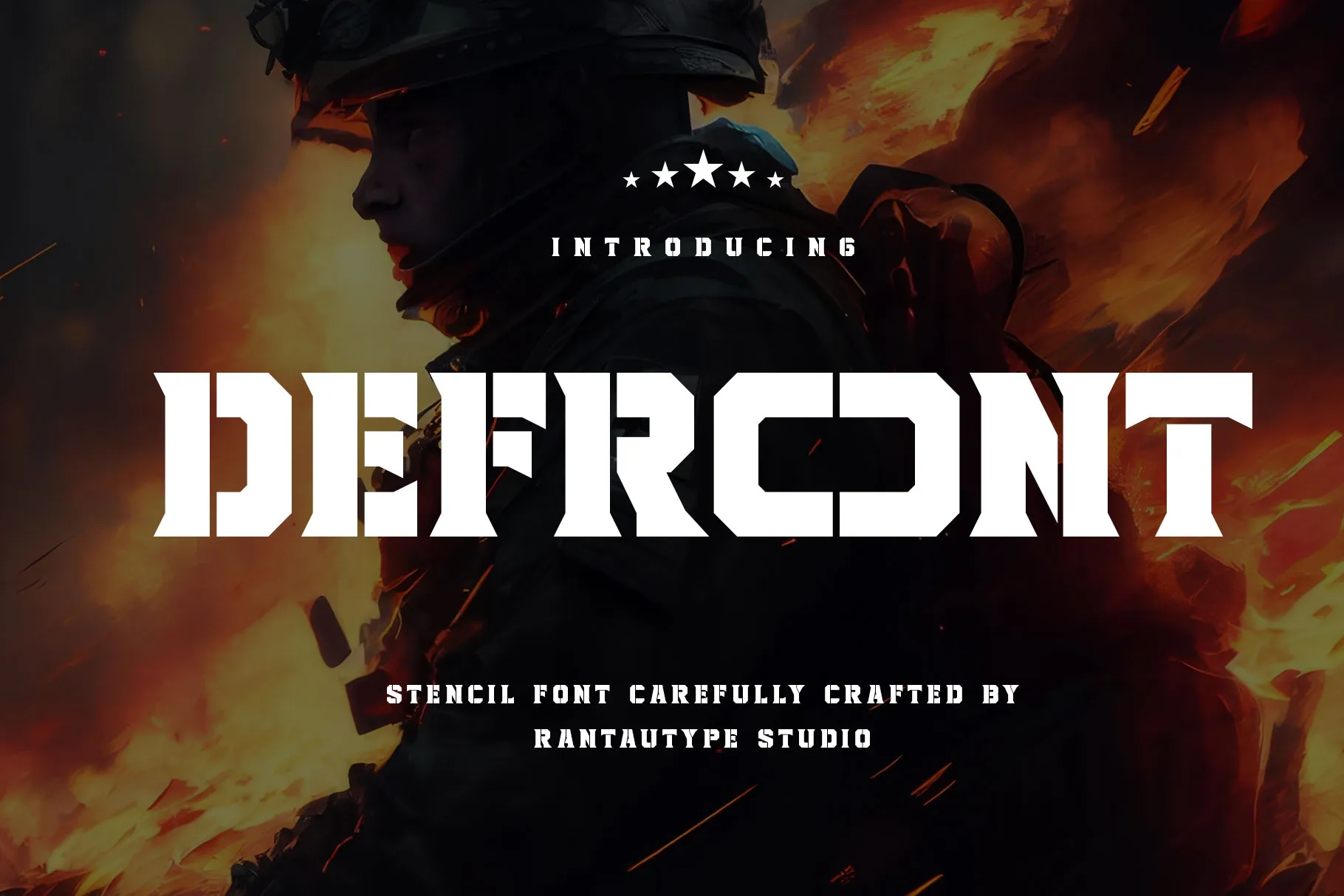
Defront is a bold, military-style stencil typeface. It features sharp geometric edges with cut-out sections. Therefore, it’s well-suited for first-person shooter and action games.
2. Outerion
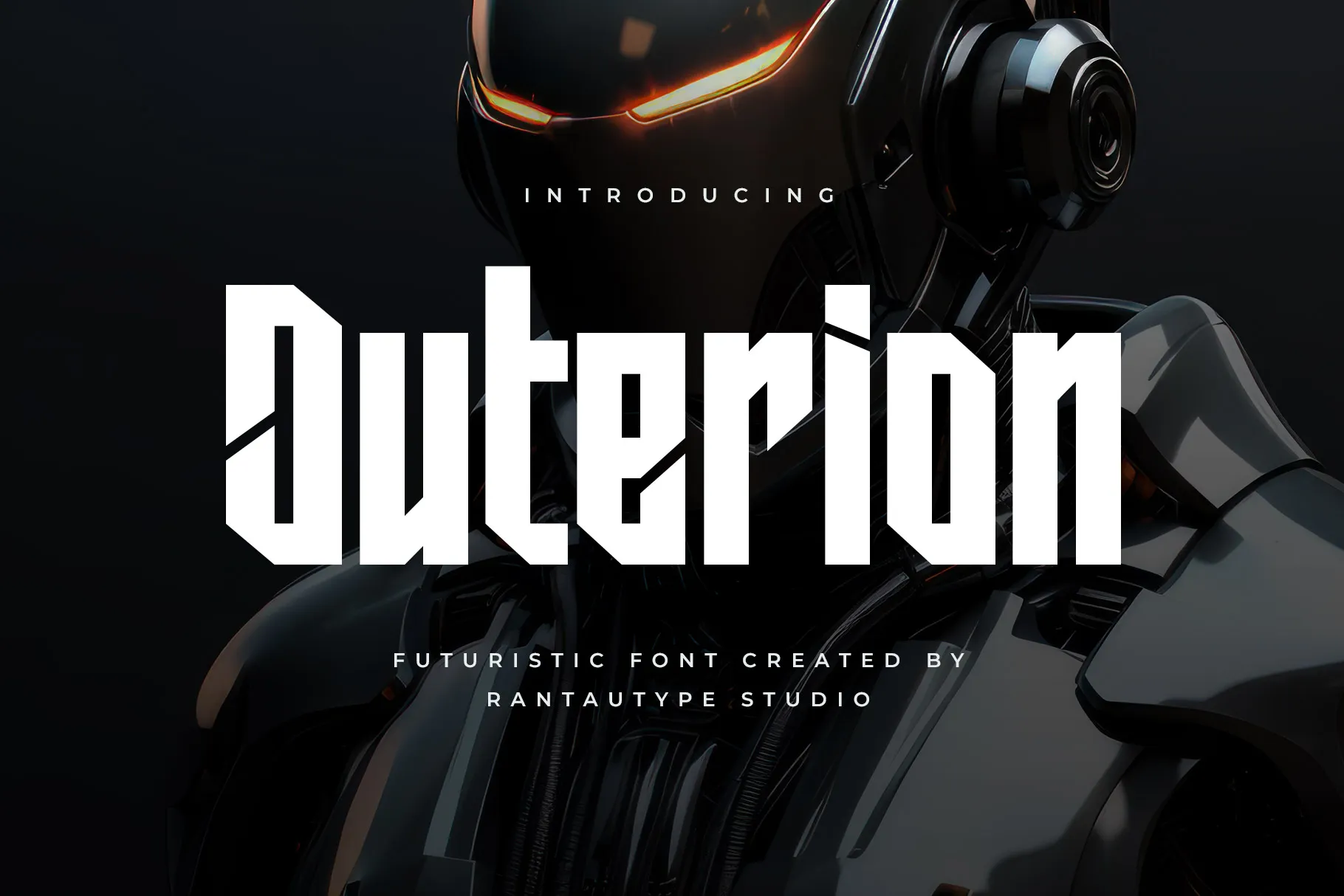
Outerion font presents sharp, angular edges, structured letterforms, and a high-tech aesthetic. It matches flawlessly for sci-fi themes, like cyberpunk, dystopian, or robots.
3. Sersant
Sersant Font exudes a modern and industrial feel with its robust geometric design. Hence, it works well for titles and UI elements in adventure or post-apocalyptic games.
4. Mirdane
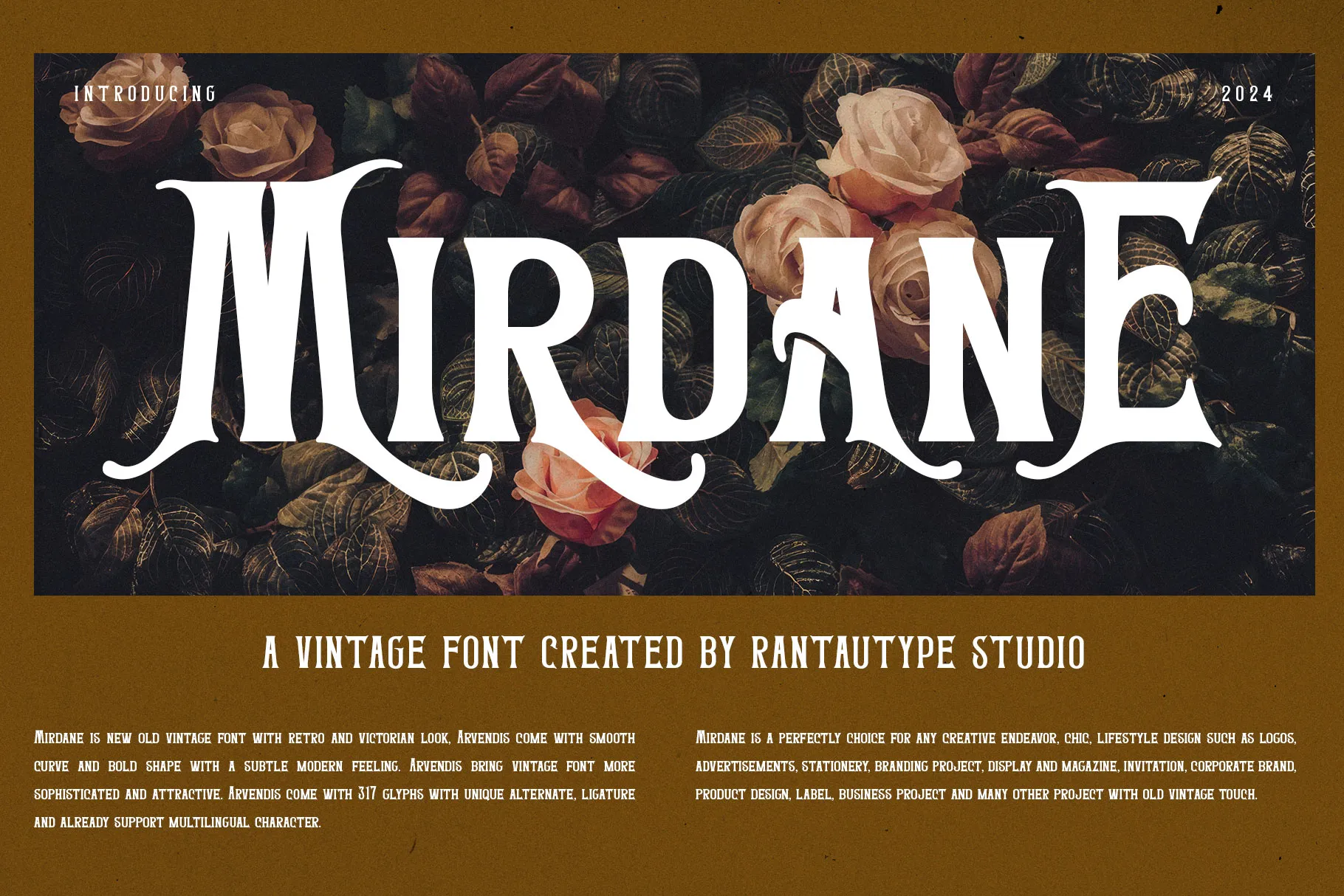
If you love fantasy games, Mirdane is wonderful to make your game design captivating. Additionally, its alternatives can bring a more authentic, enchanting vintage look.
5. Stenar
The Stenar font has a strong, blocky style, giving it a medieval-inspired vibe. Despite its unique style, the font is still clear and legible for an eye-catching title.
6. Dark Mystic
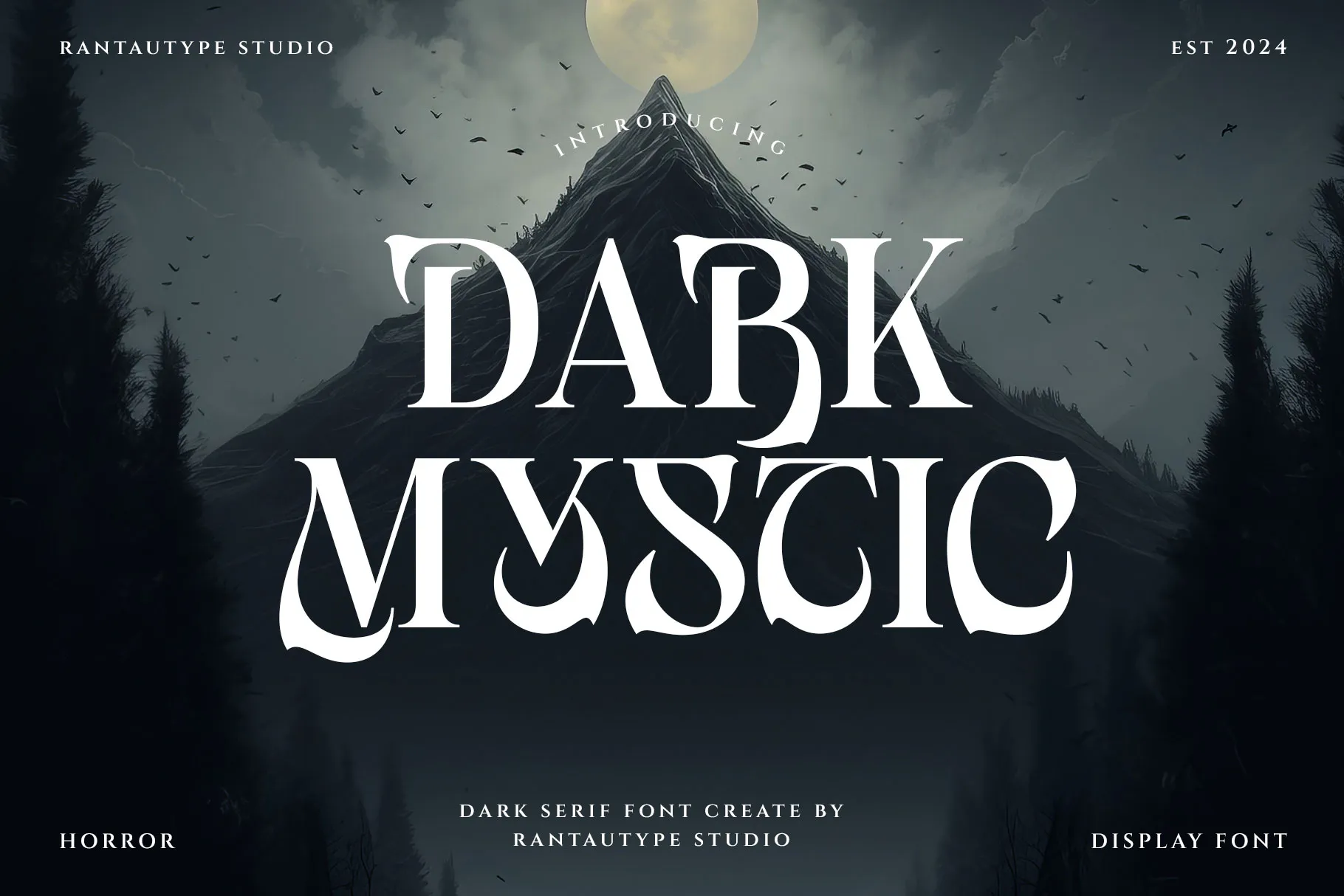
Dark Mystic font stands out among other fonts for games. Like its name, the font appears mystical and mysterious. It will be a good font to complement dark fantasy games.
7. Cadires
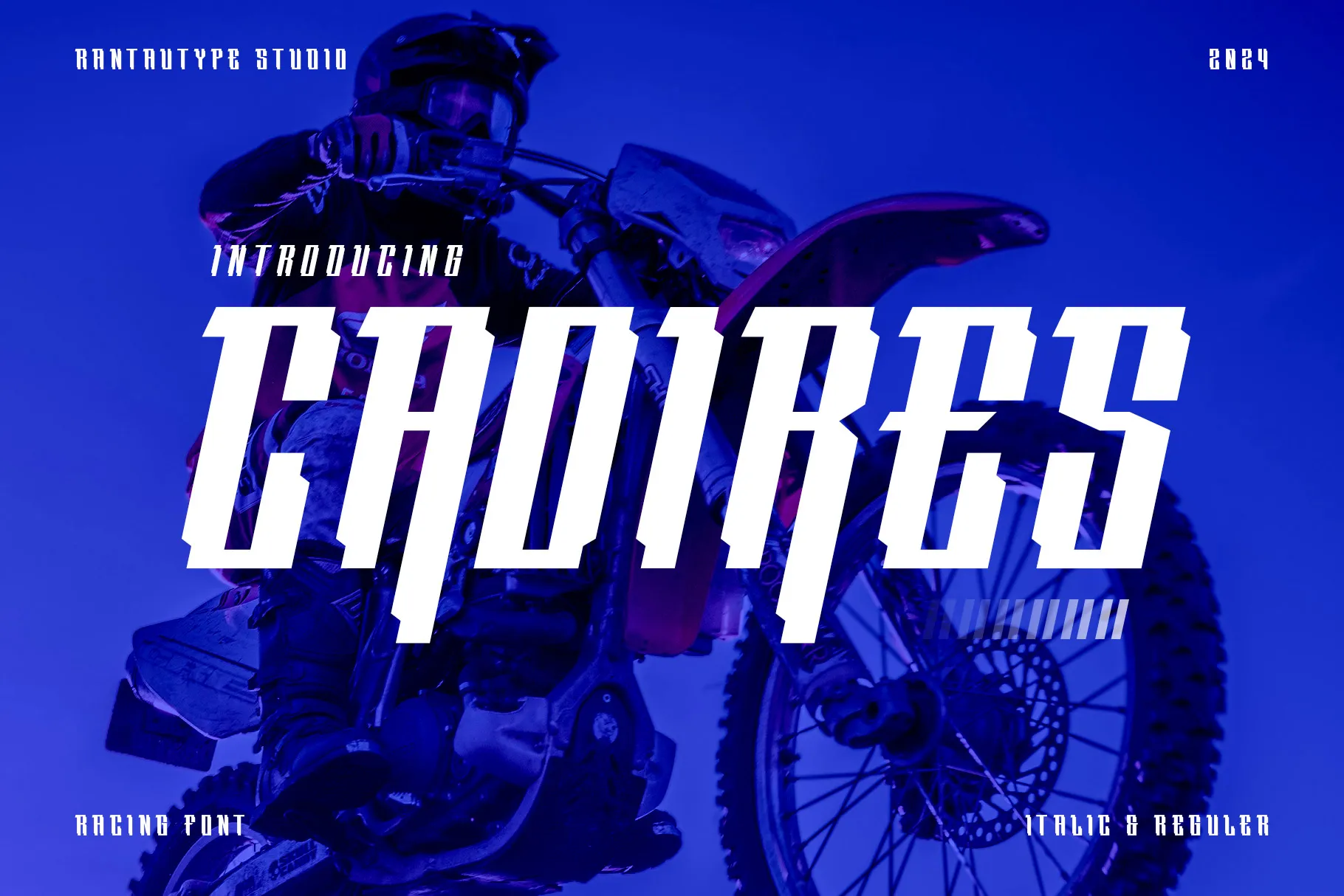
The Cadires font has a structured design with a pixelated style, giving it a solid appearance. This font is versatile for sports or retro, pixelated games.
8. Maorin
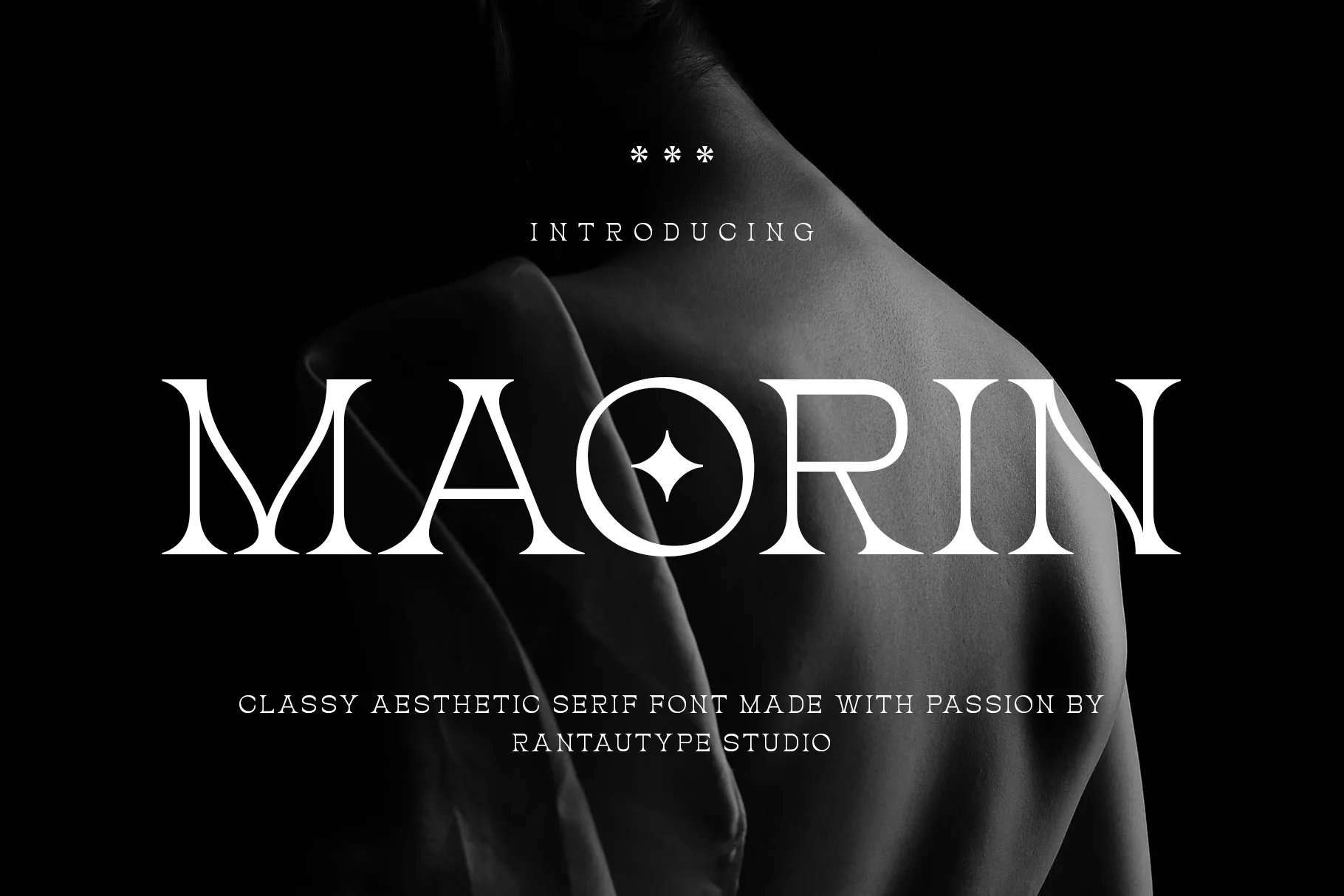
The Maorin font appears elegant and classic. However, it can be used for various purposes. Thanks to its sleek design, the font looks great for sci-fi or fantasy games.
9. Rectinos
What font is used for Game of Thrones? The Game of Thrones logo features a custom serif typeface with sharp, elegant lines that evoke a medieval aesthetic. Similarly, Rectinos, with its ornate blackletter design, carries a gothic flair that complements medieval, fantasy, or pirate-themed visuals.
10. Theroar
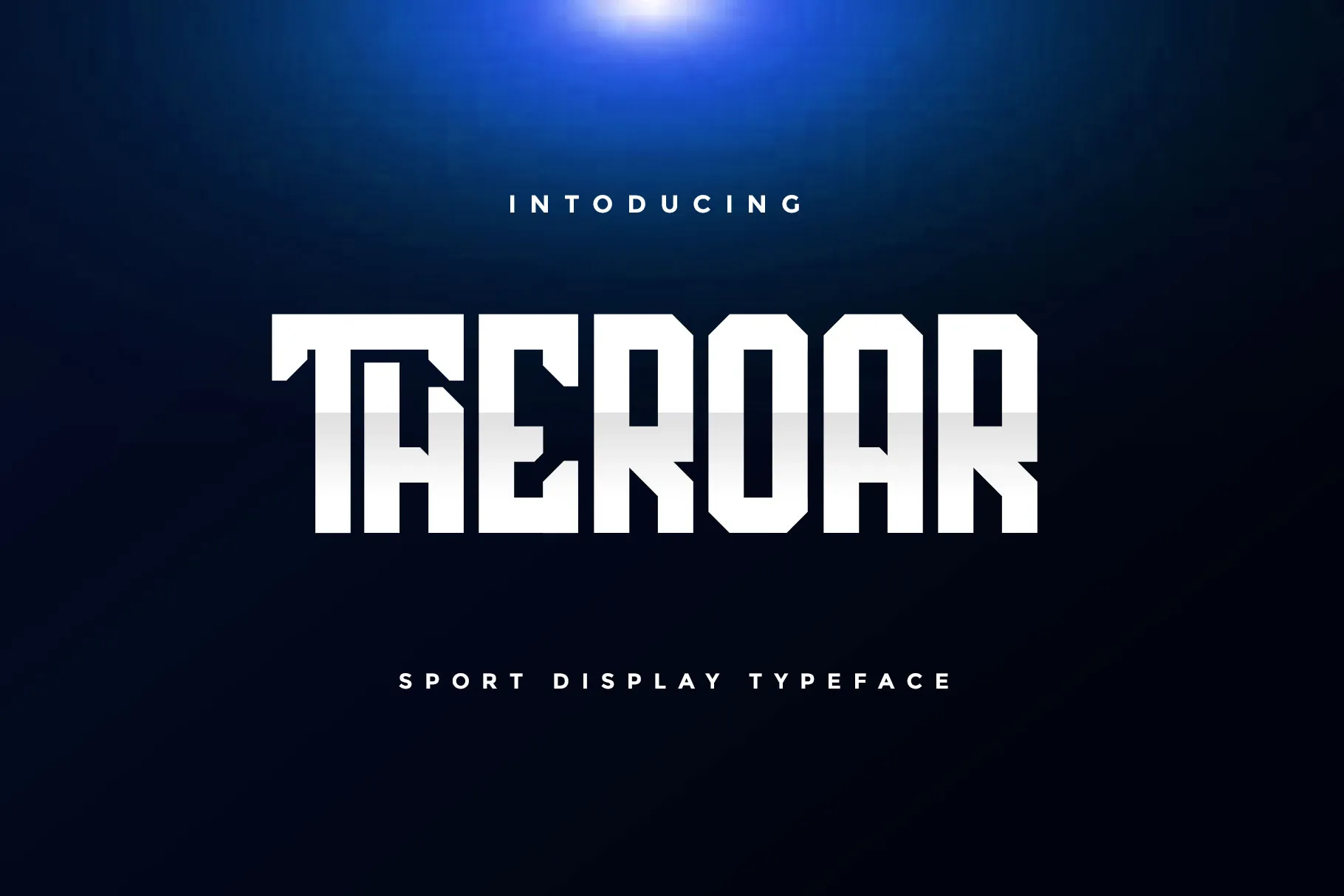
Theroar font is one of the good fonts for games with a modern aesthetic. Thus, it looks stunning for titles or logos.
11. Elsone
Give your game a more advanced vibe! No sans serif font better embodies modernity than Elsone’s design.
12. Kuvas
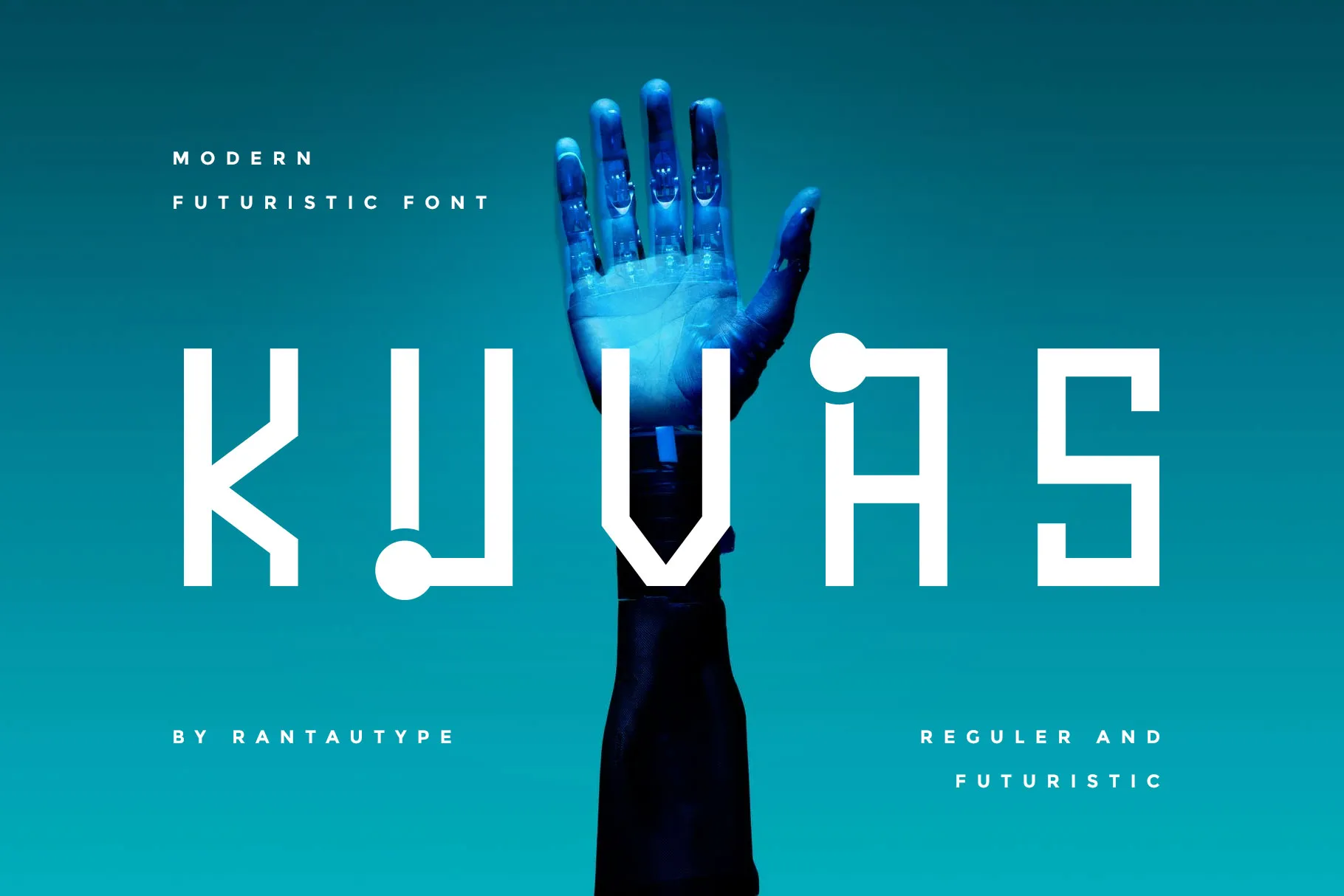
If you want to make your game design more futuristic, Kuvas font is a great answer. The font has a minimalistic design with circular details to reinforce its digital look.
13. Fassero
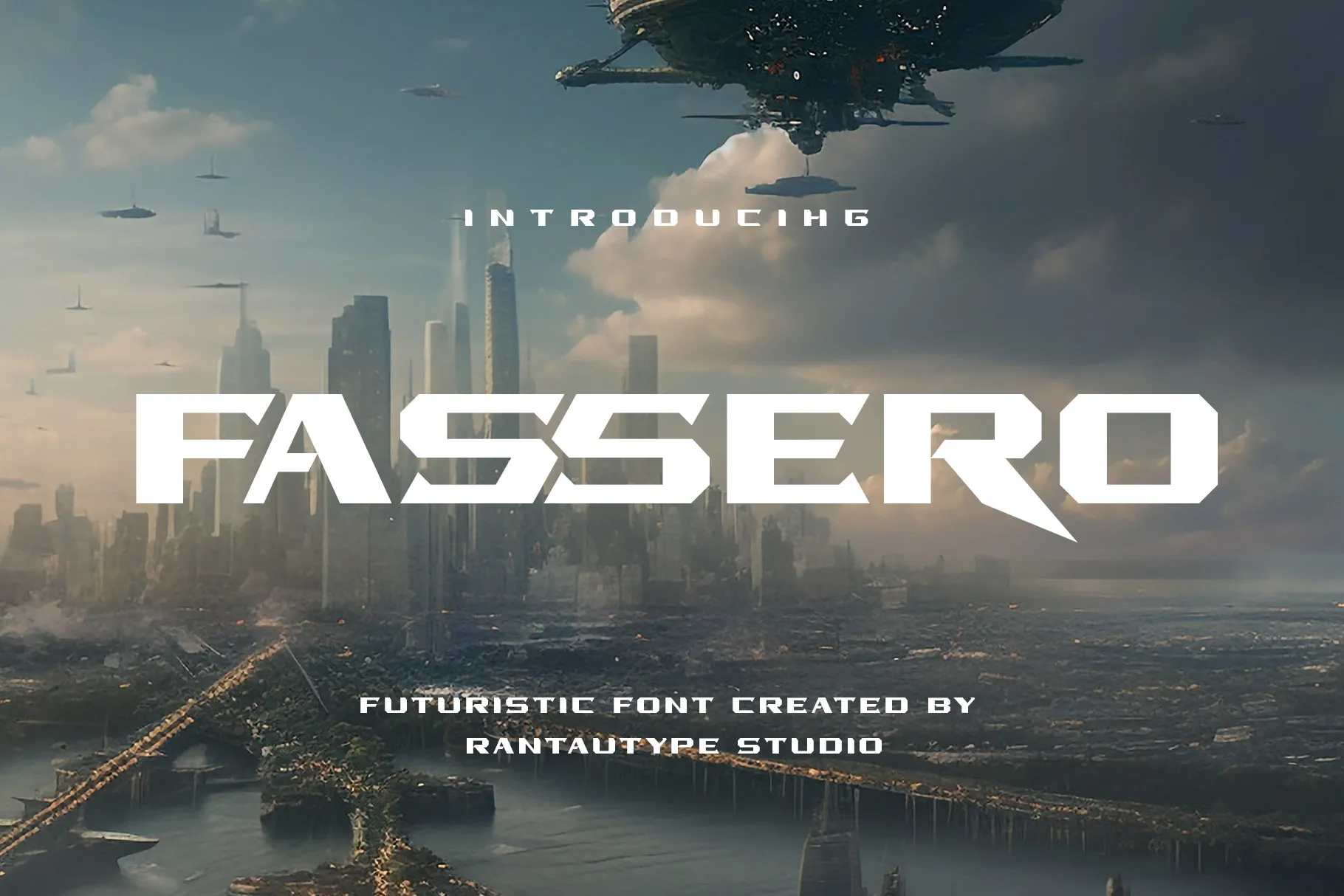
The Fassero font features a sharp, aggressive design with cut edges and extended strokes, creating a dynamic, fast-paced appearance.
14. Bathalion
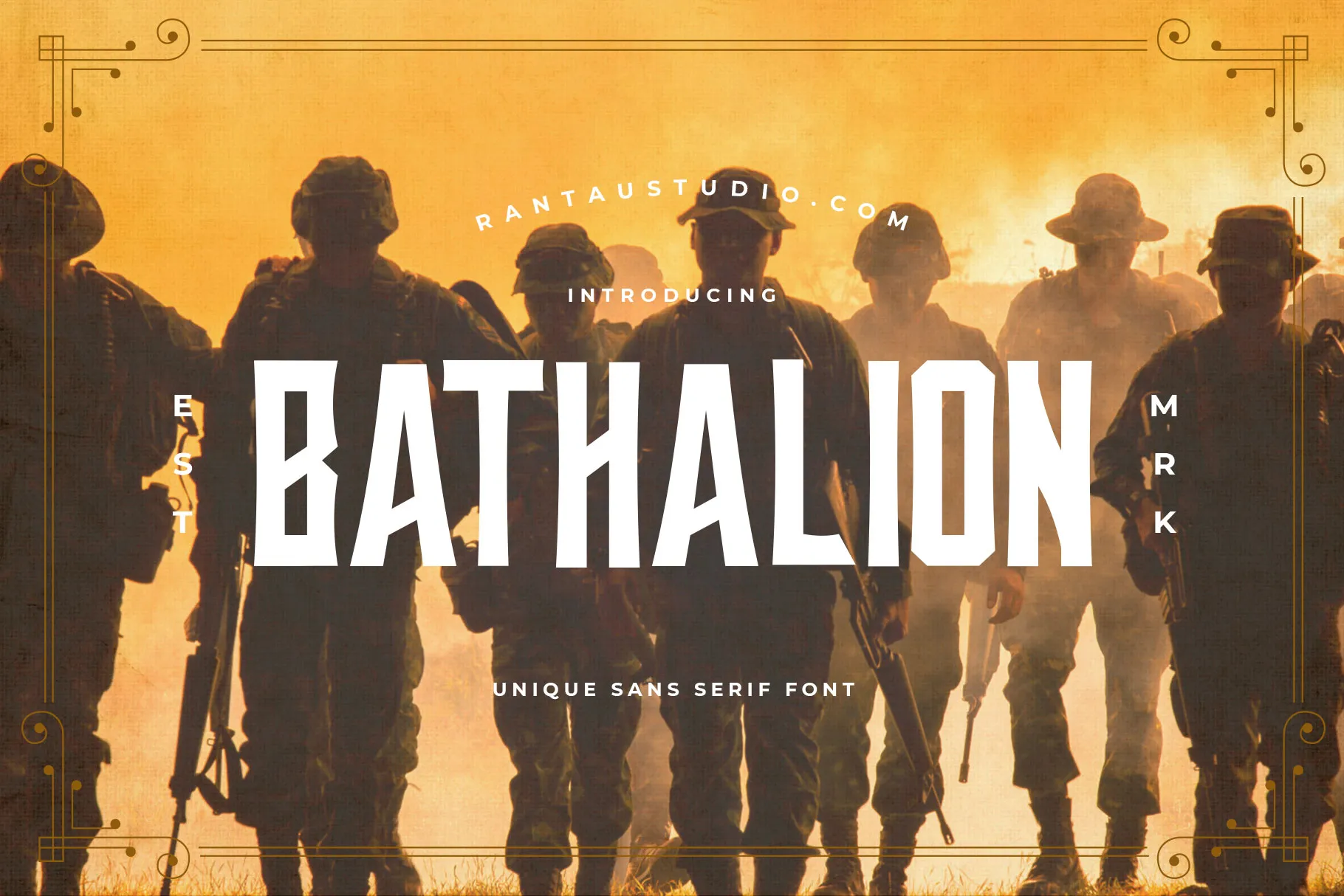
The Bathalion font is flawless for strategy, war, and FPS games. Its thick and robust letterforms heighten the intensity of the gameplay.
15. Vorcas
Unlike other fonts for games, the Vorcas font offers a unique way to present futuristic themes. The font features a distorted design, resembling a digital glitch or interference effect, like dystopian settings.
16. Dragna
Dragna is perfect for games that need to capture attention immediately. Its heavy-weight structure ensures legibility, even in fast-paced, high-intensity environments.
17. Fortine
Fortine font is sleek and futuristic, making it the perfect option for space or adventure games. Its technological design offers a sophisticated look that pairs well with high-end visuals.
18. Resond
Resond font is a cyberpunk-inspired font. It has a bold, geometric structure, evoking a strong digital presence, like retro-futuristic themes.
19. Rush Driver
Rush Driver font is a sleek and modern typeface, ideal for games that require a contemporary feel. It works well in racing games that demand a dynamic vibe.
20. Galantic
As one of the top fonts for games, Galantic font offers a bold, powerful presence. It’s a great choice for action or sports games where legibility and impact are important.